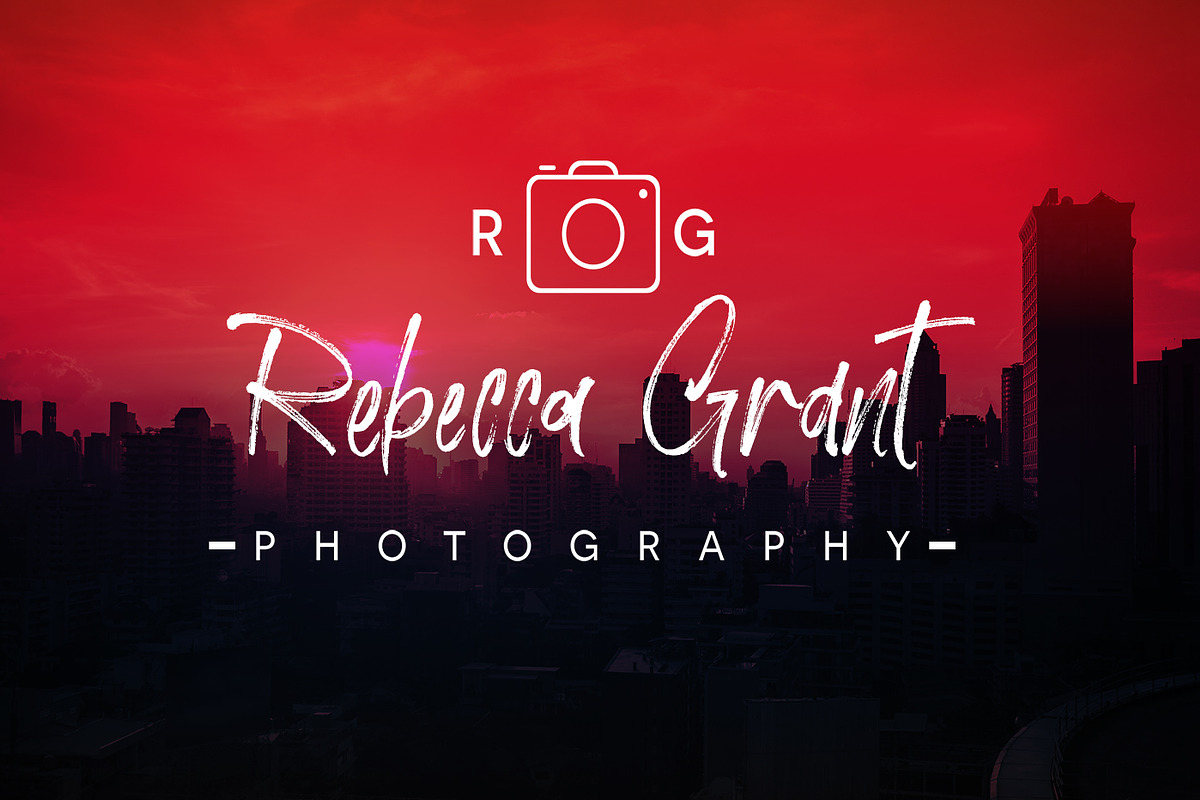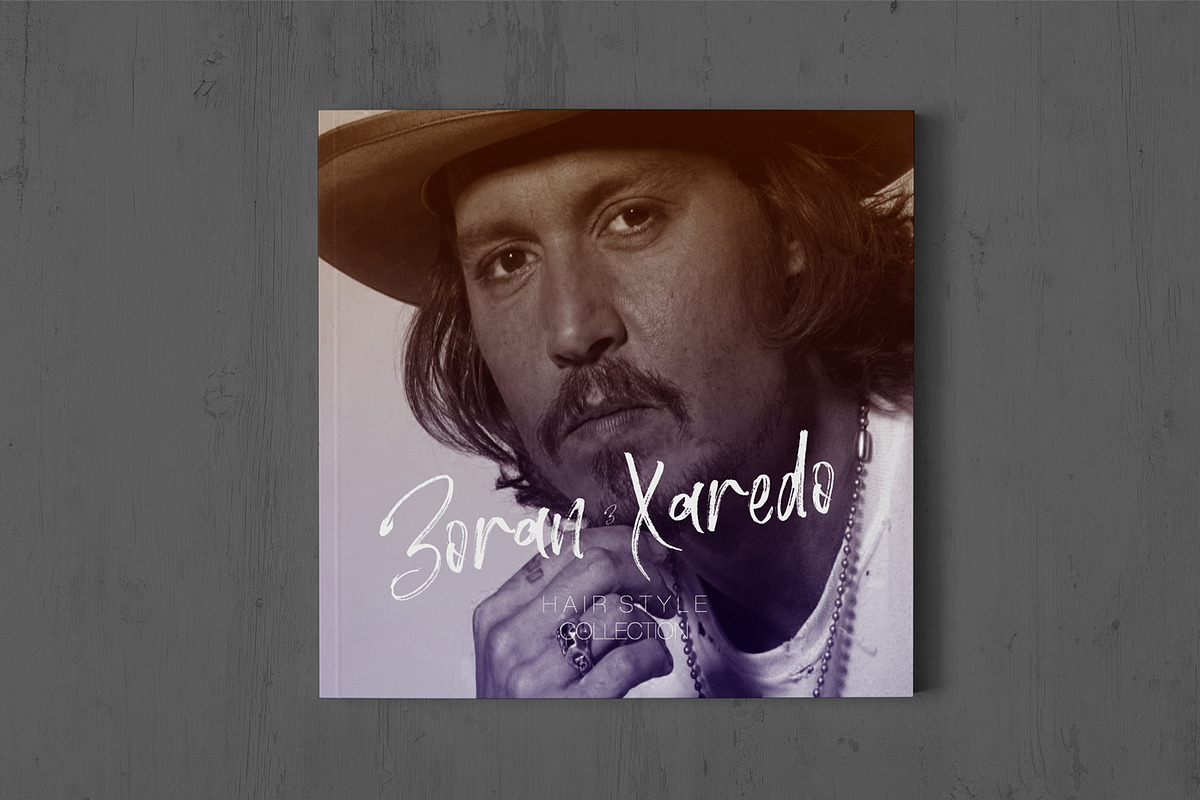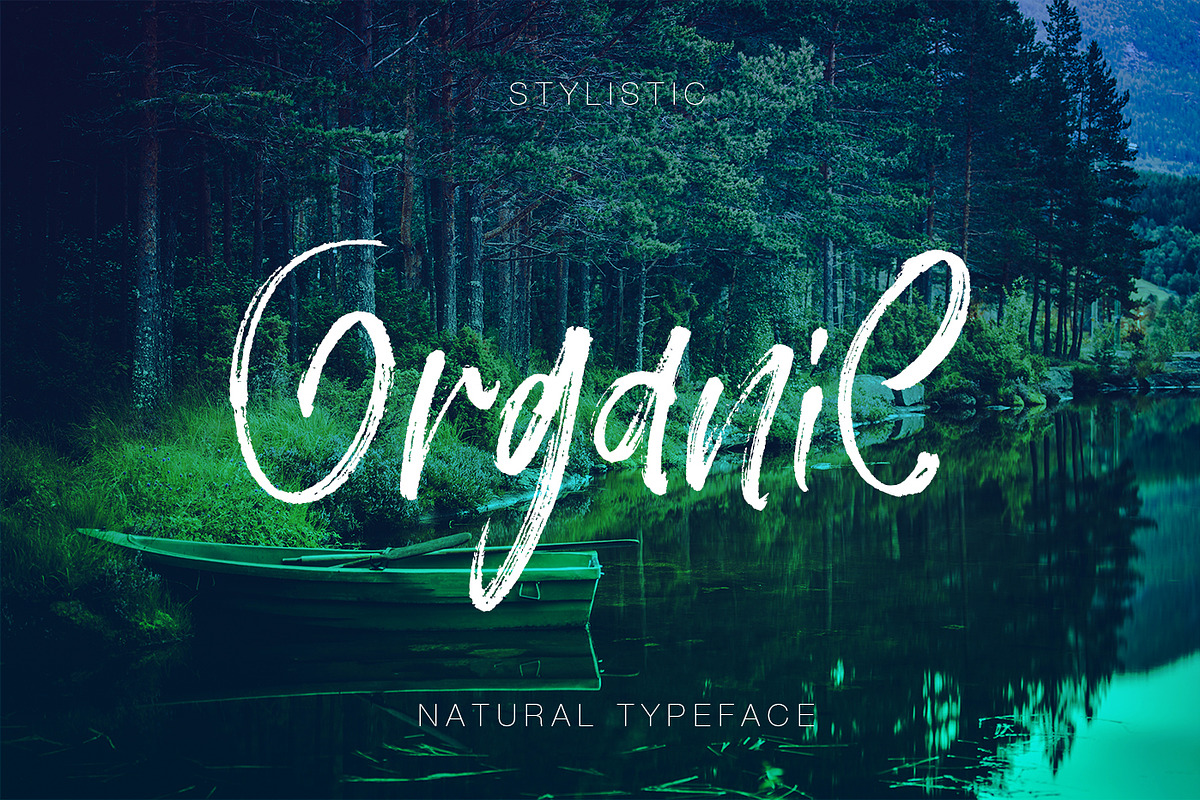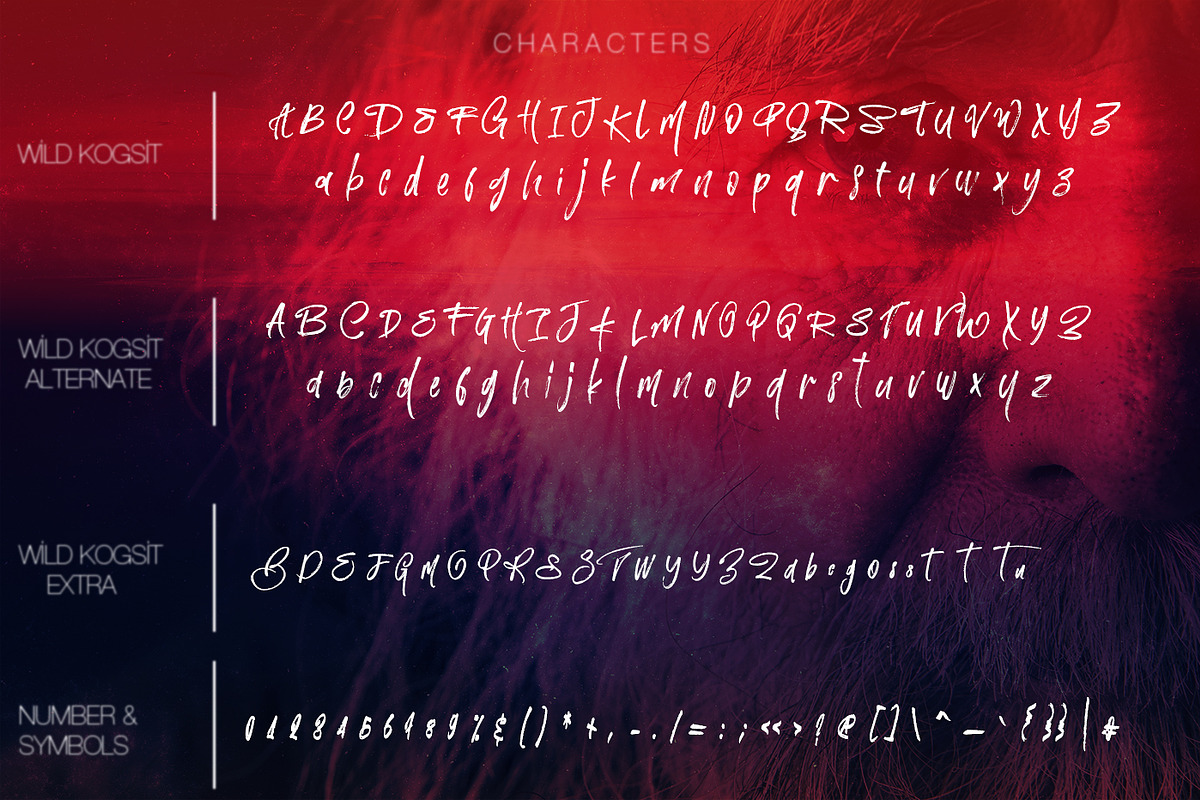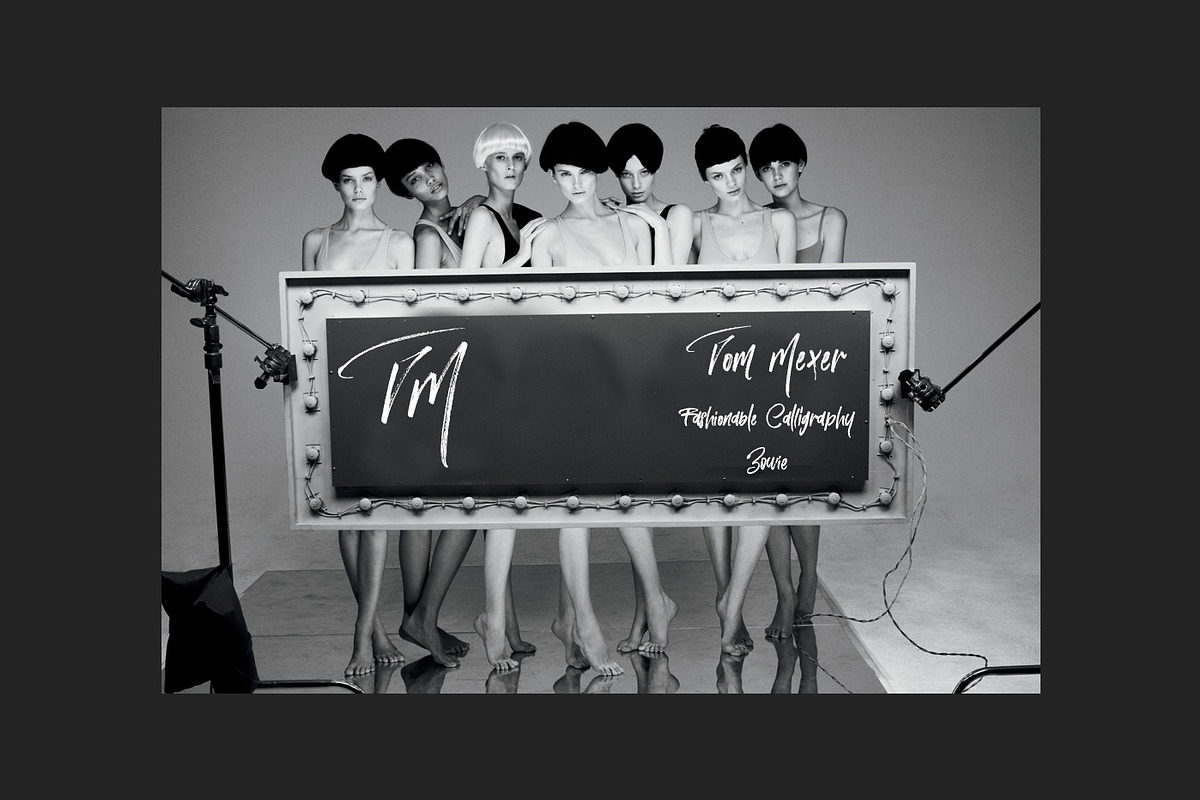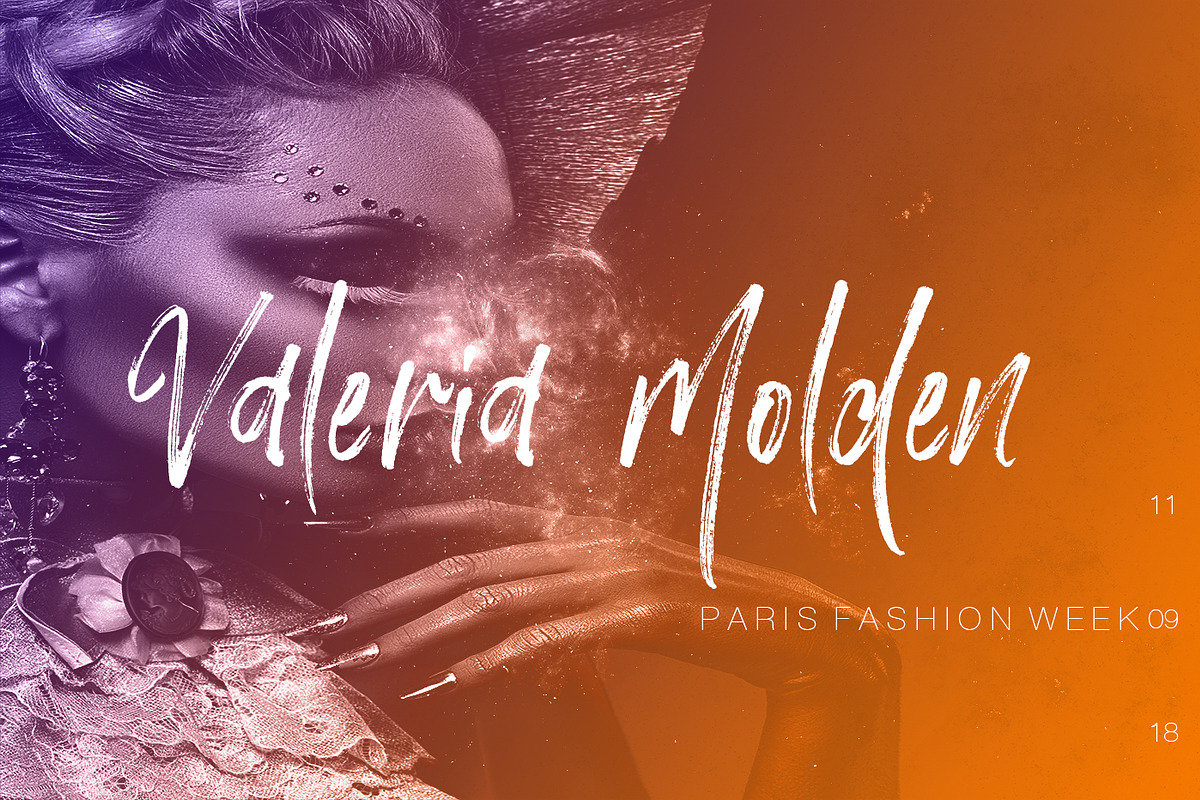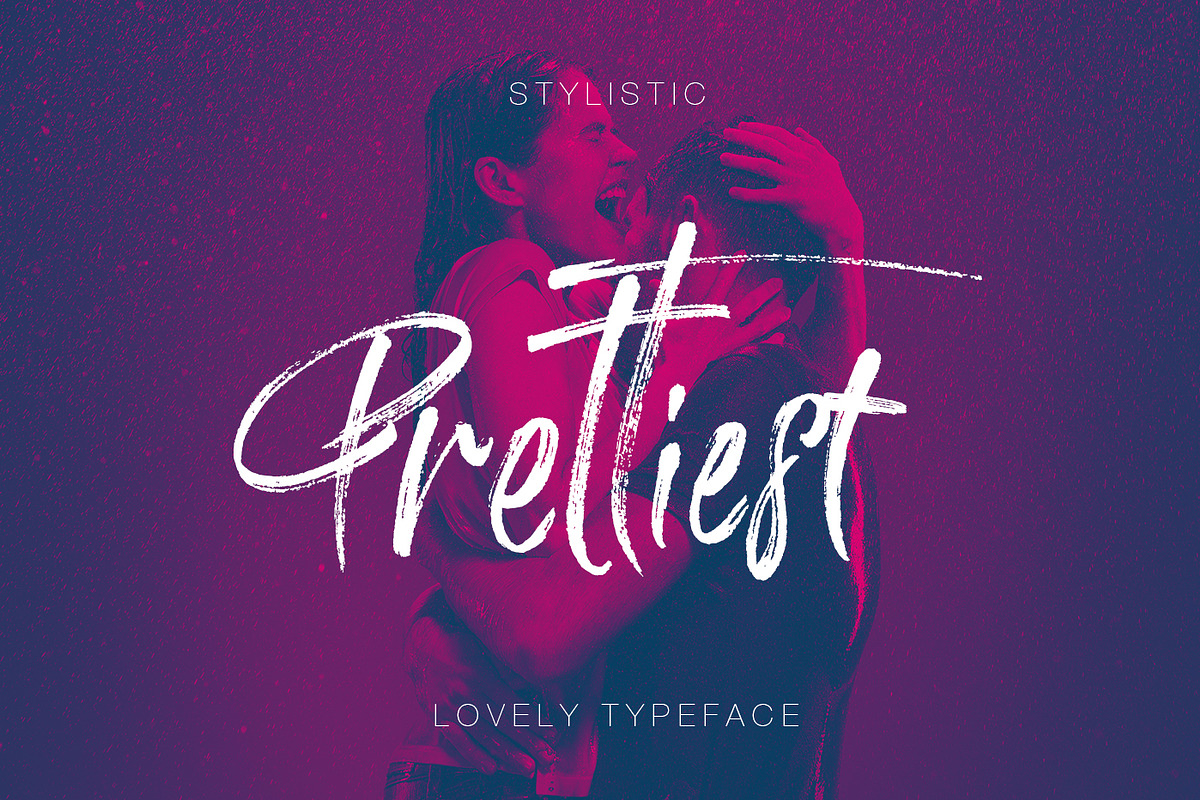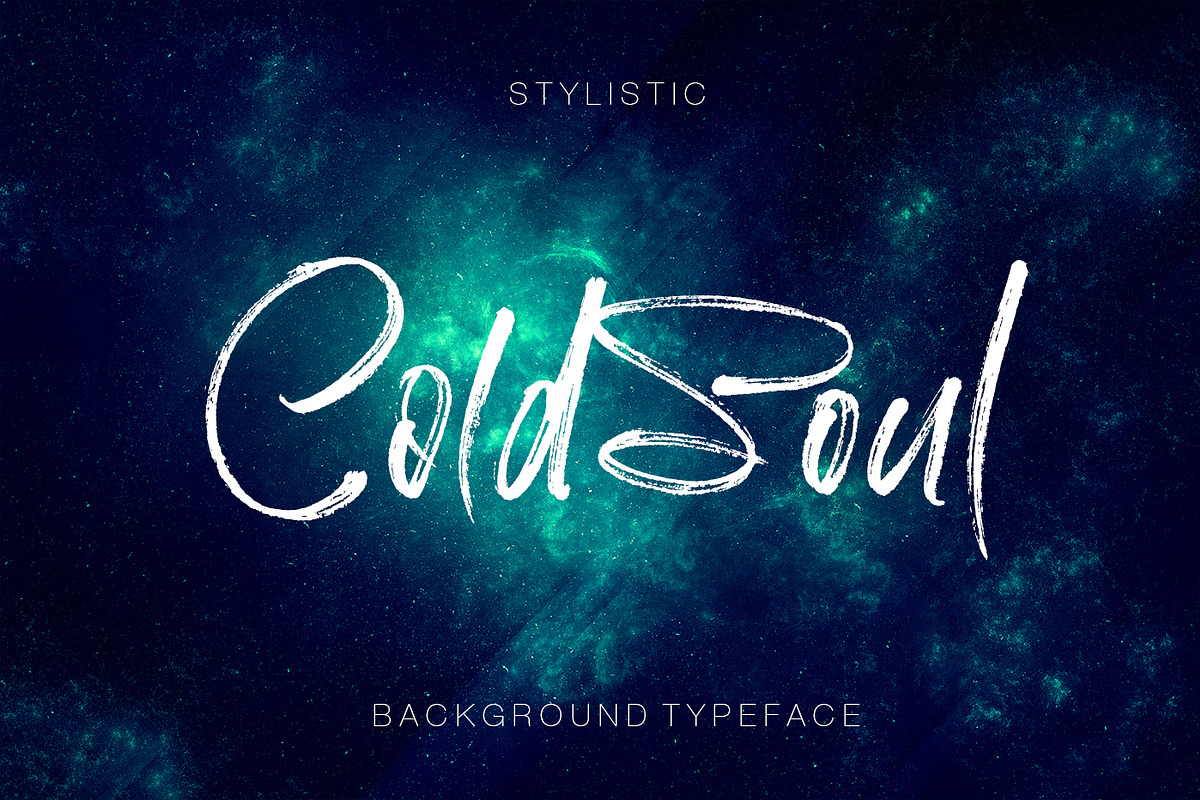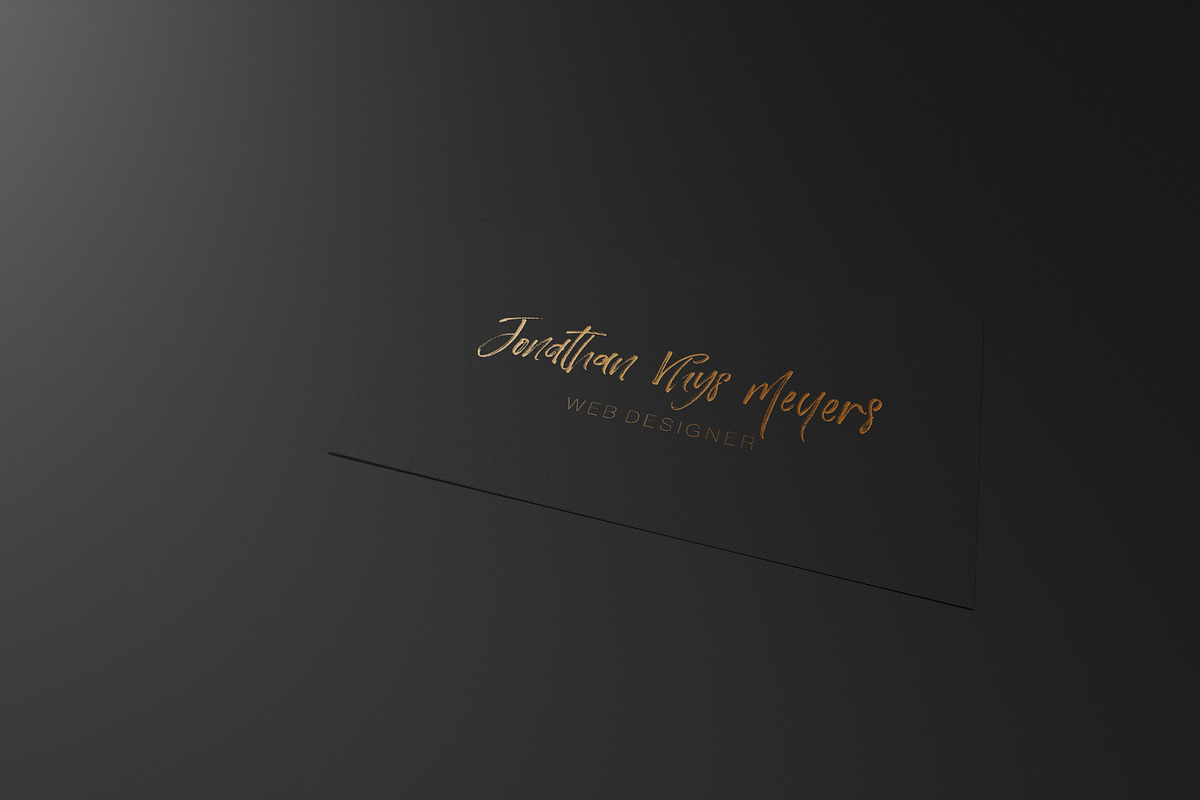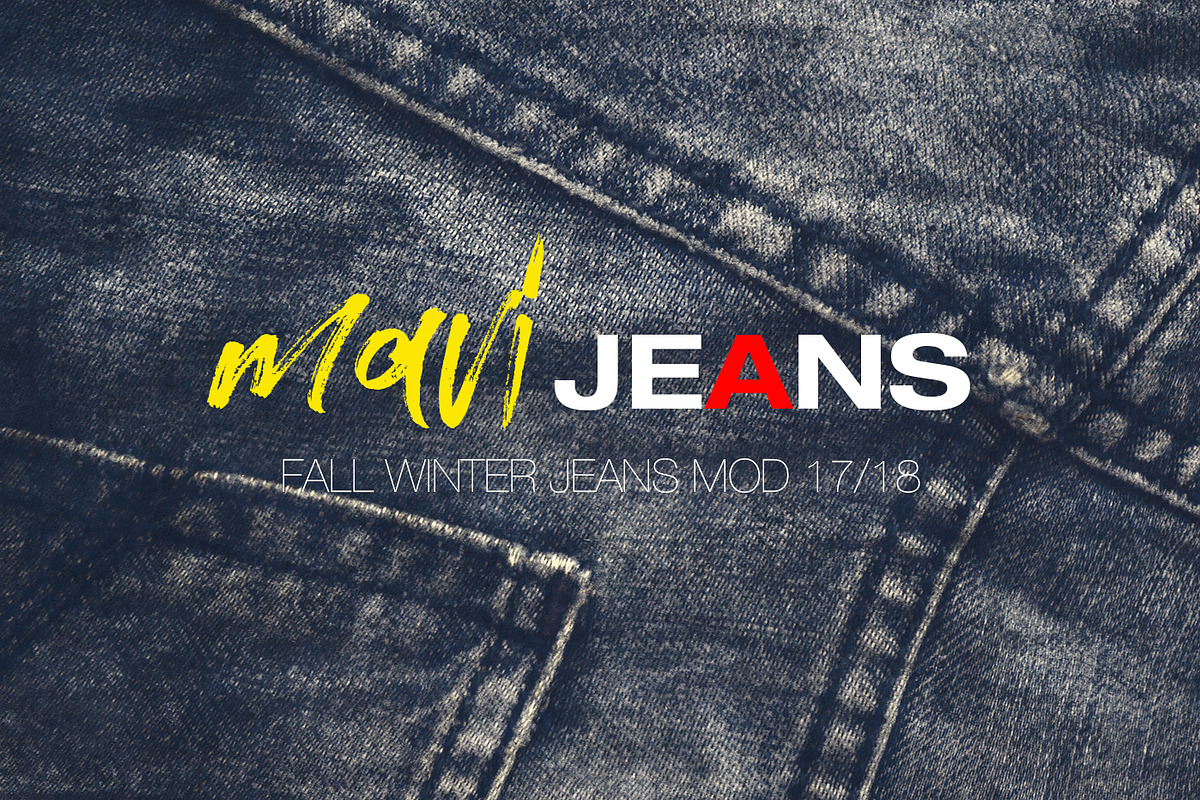
Wild Kogsit
Wild Kogsit Font : Wild Kogsit Brush Font has almost an unique design that posseses elegancy and charm. Fluidity of ink and hardness of brush created the unique characteristics of the font. You can see the harmony of the curls among the letters. With Wild Kogsit, you can make your projects, brands, presentation of your collections, magazines, logos, packagings and websites be eye-catching with pleasure. Wild Kogsit includes 3 font files ;
These 3 files above can be used together to create much more combination even for the same word. Apart from 3 font files, you can bring your designs into the forefront with alternative letters.
Just in case you may want to enrich your designs with remarkable differences. New and particular designs with Wild Kogsit Big Alternate Collection.